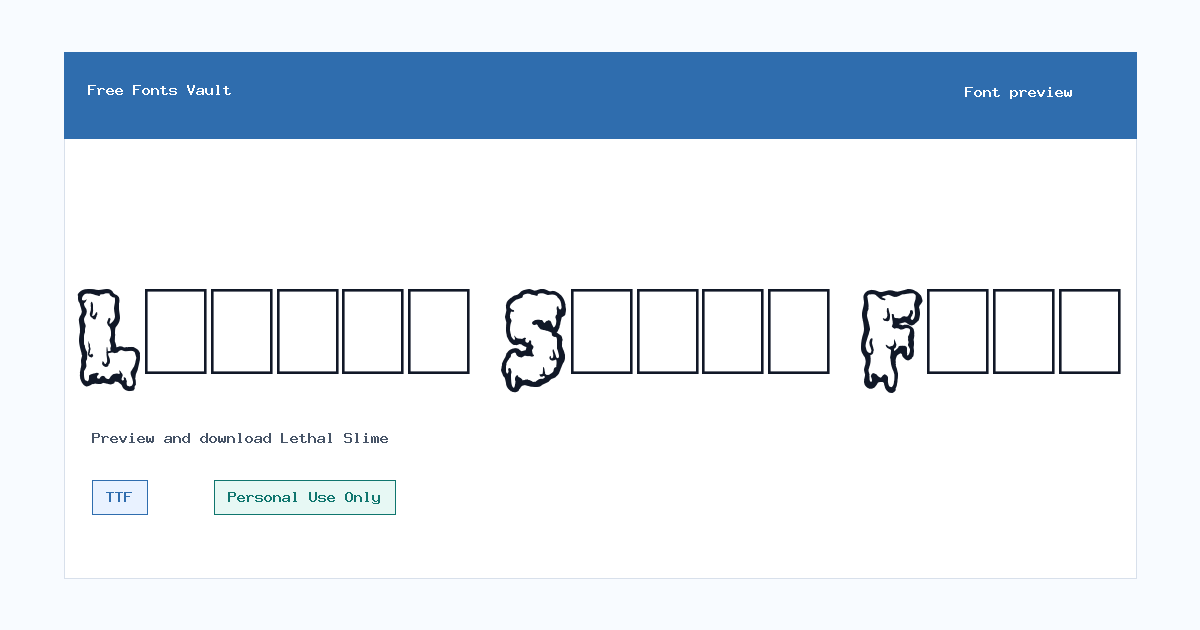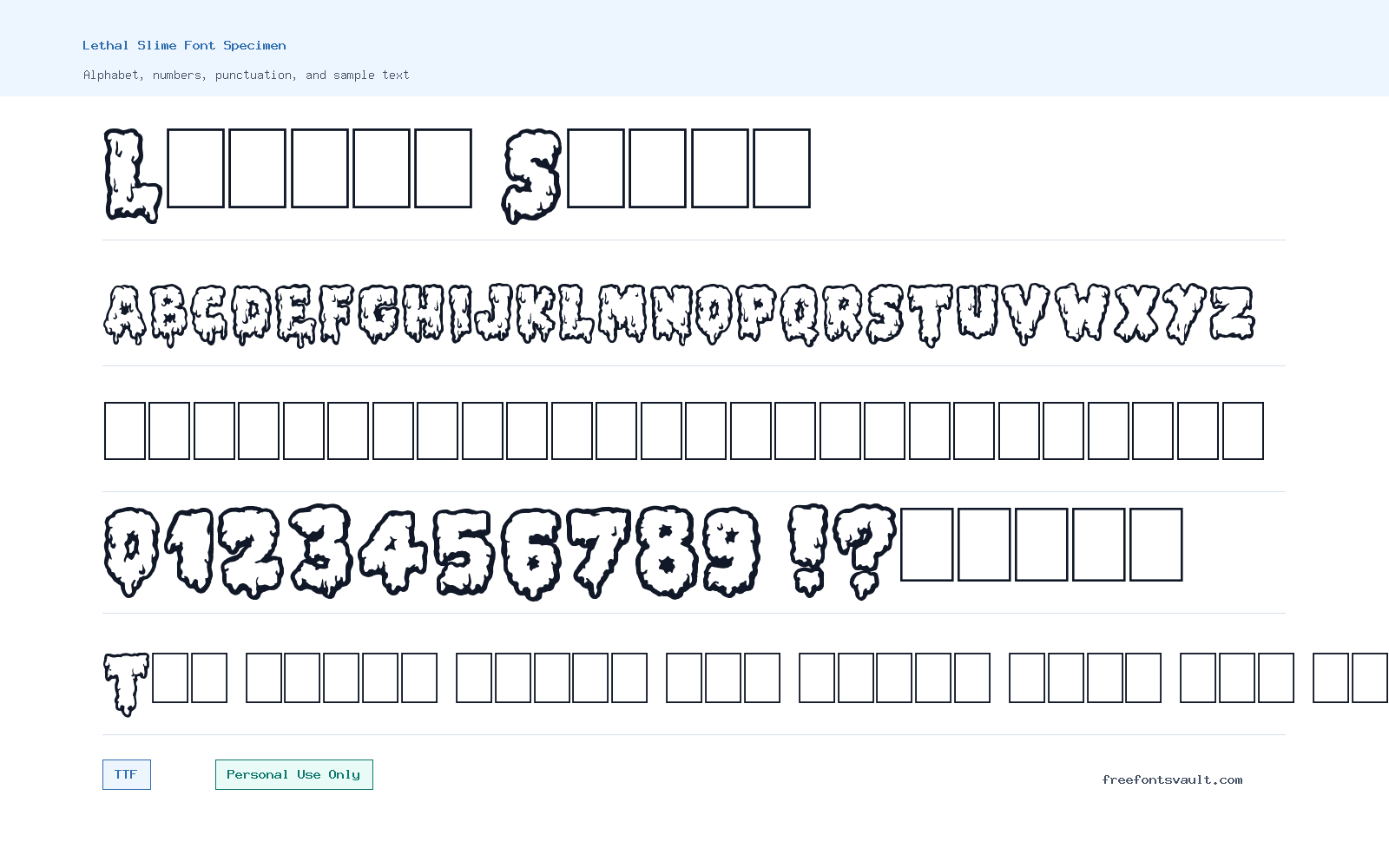
Lethal Slime
Lethal Slime font preview showing the family name
Lethal Slime Font
Lethal Slime font specimen showing alphabet, numbers, and sample text
Lethal Slime font.
Lethal Slime is a gooey display font with chunky, uneven letterforms that look like they are melting or dripping. It is made for short horror-themed text, spooky titles, and bold decorative lettering rather than long reading.
About Lethal Slime
Lethal Slime uses rough outlined shapes, soft blob-like edges, and drip details to create a messy slime effect. The visible character map shows uppercase letters and numbers in the decorative style, with a limited set of punctuation marks. Because the design is heavy and irregular, it works best when the text is short and the font size is large enough for the details to stay clear.
Use Lethal Slime for Halloween graphics, monster-themed posters, game titles, party flyers, stickers, thumbnails, and other designs where the text can act as artwork. For cleaner results, pair it with a plain sans serif for body copy, dates, prices, and longer notes. If you are using the preview tool, test the exact words you plan to set, especially lowercase letters and punctuation, because the character support appears limited.
• Dripping slime-style uppercase letterforms with rough outlines
• Halloween titles, horror posters, and spooky event graphics
• Short display words for game art, thumbnails, stickers, and themed merchandise mockups
Keep the font large and use it for a few words at a time. Avoid setting paragraphs or small captions in this style, and check the preview before downloading if your text needs lowercase letters, accents, or special symbols. Use strong contrast so the drip details do not disappear.
What kind of font is Lethal Slime?
It is a decorative horror-style display font with melting, slime-like letter shapes.
Can I use Lethal Slime for long text?
It is not a good choice for long text. Use it for short titles or single words, then pair it with a simpler font for readable information.
Does Lethal Slime include lowercase letters?
The visible character map shows the main decorative forms for uppercase letters and numbers, while lowercase characters appear limited in the preview. Test your exact text before using it in a design.
If the layout includes a busy background, add a solid color panel or outline behind the text so the slime shapes remain readable.